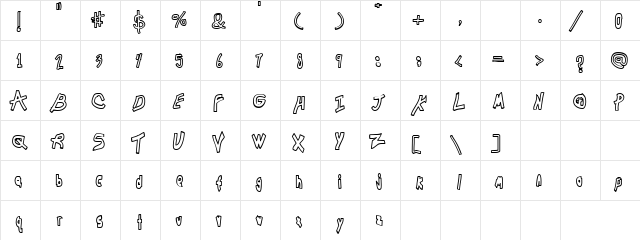
Dominion Halo Regular
Design Context for Dominion Halo Typeface
Dominion Halo is a composed and adaptable typeface that performs quietly and consistently across a wide range of design contexts.